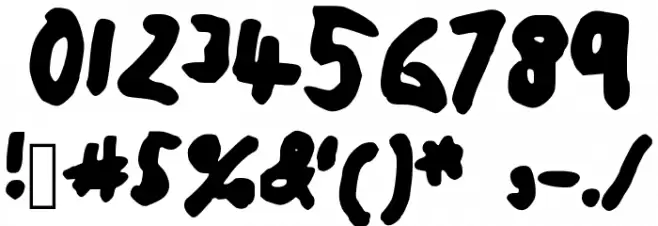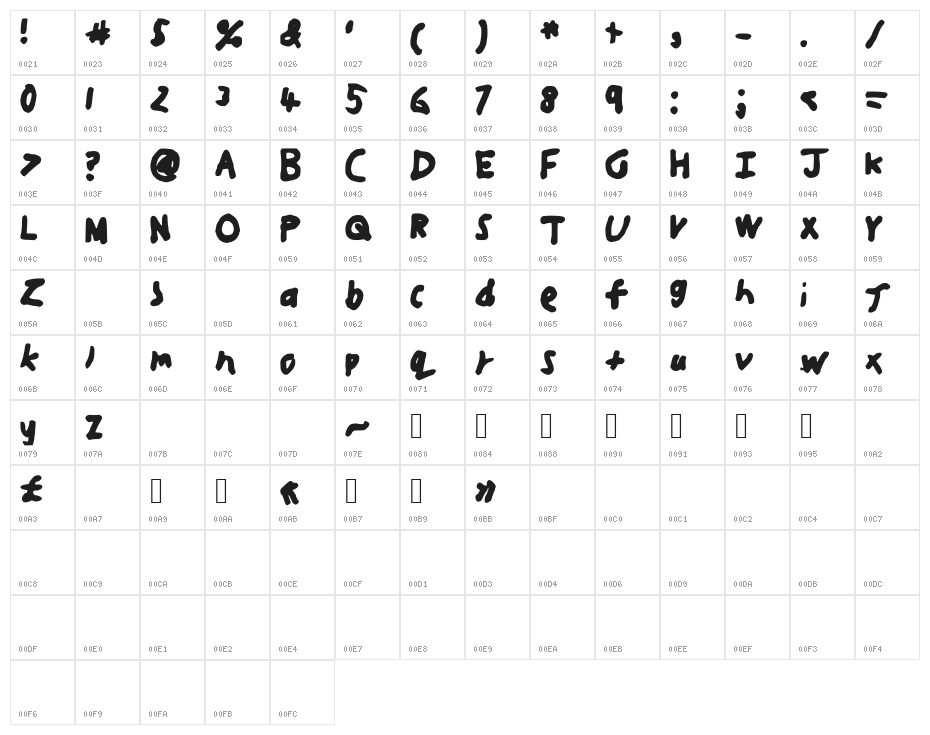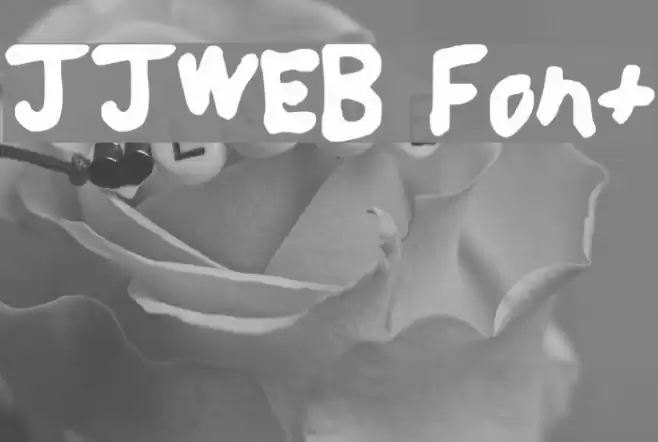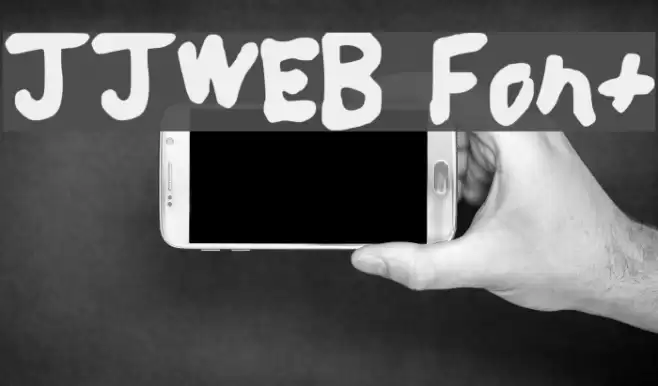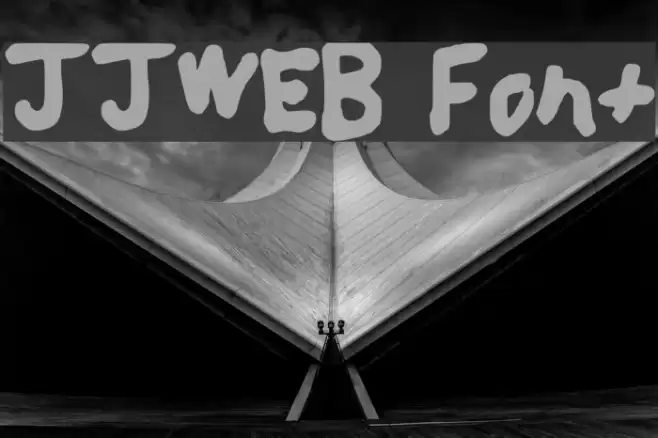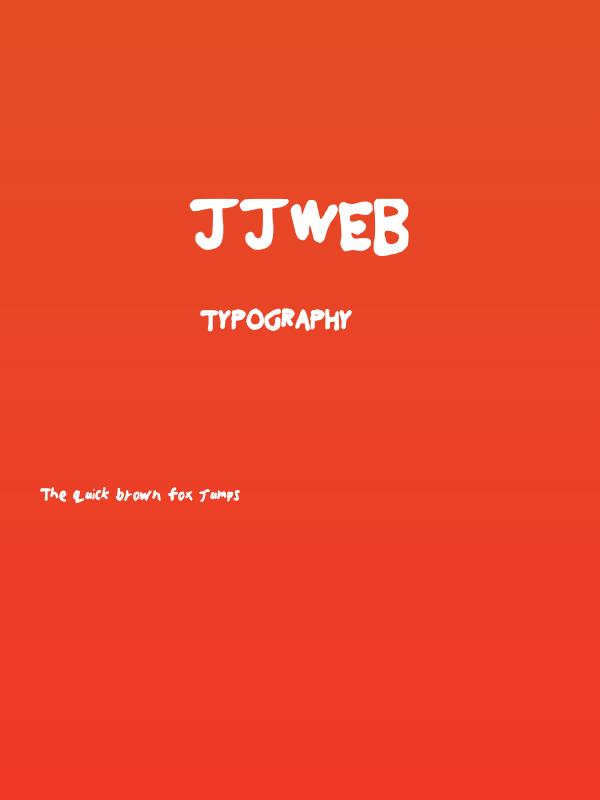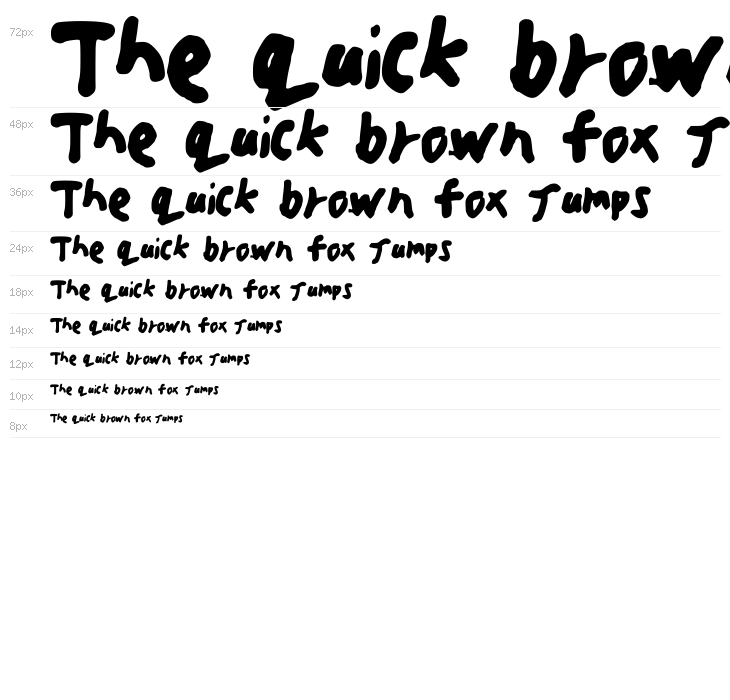
JJWEB Font
JJWEB Description
This font exhibits a bold, playful style with a hand-drawn appearance. The characters are thick and rounded, giving a casual and informal vibe. The uppercase and lowercase letters maintain a consistent weight, while the numbers and special characters follow the same aesthetic. The strokes are uneven, adding to the organic feel of the font. This style is reminiscent of graffiti or chalkboard writing, making it stand out with its unique, artistic flair.
| Proposed Projects | Ideal for creative projects such as posters, children's books, comic strips, or branding that requires a fun and informal touch. |